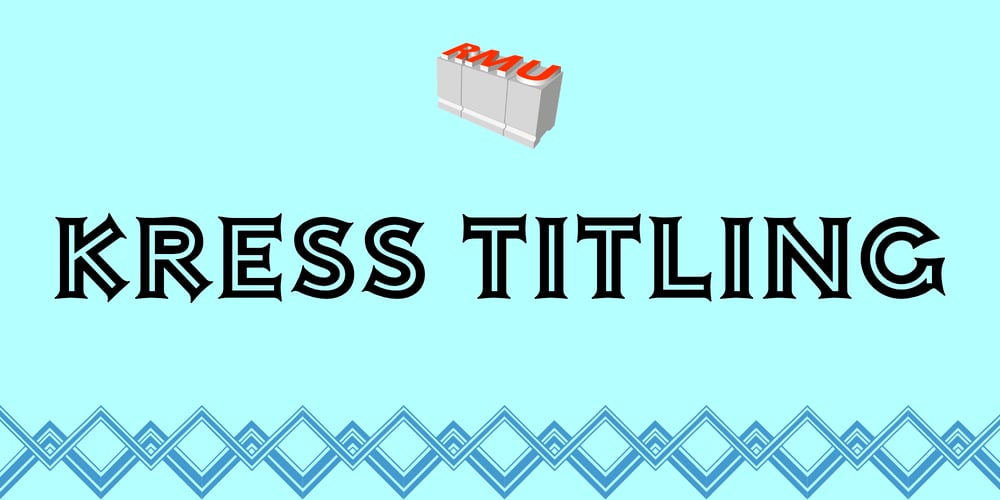
Kress Titling Font Family was designed by Ralph M. Unger and published by RMU. Kress Titling contains 1 styles and family package options. In 1923, the Schriftguss AG, Dresden, released this all-caps Art Deco font designed by Otto von Kress.From the existing basics, the now available font was completely redrawn and redesigned for modern use.